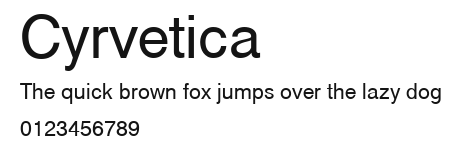
Cyrvetica.ttf is a modern, elegant sans-serif font designed for ultimate readability and visual harmony. Perfect for branding, headlines, web design, and print materials.